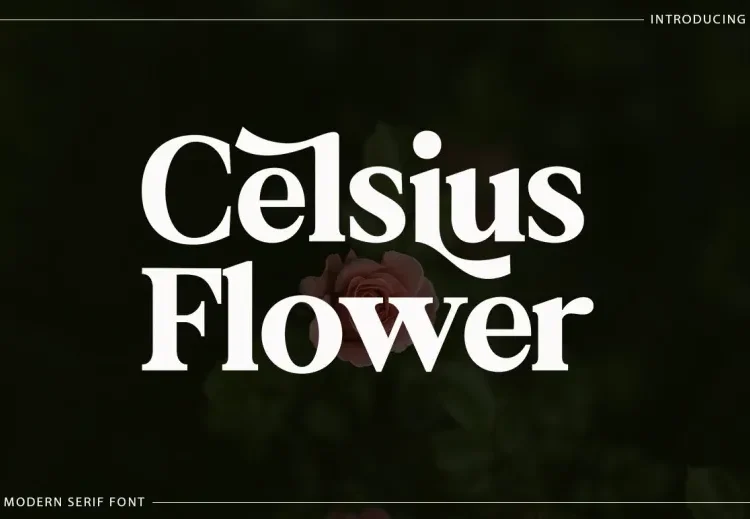
Celsius Flower Font
Celsius Flower is an attractive modern serif typeface characterized by its soft lines and elegant design. This versatile font strikes a perfect balance between stylish sophistication and readability, making it ideal for a variety of applications. Whether you’re working on invitations, menus, labels, or logos, Celsius Flower enhances your projects with a touch of contemporary grace.
Its design is particularly well-suited for feminine and romantic themes, adding a refined, sensual quality to any text. The font’s timeless appeal ensures it fits seamlessly into formal environments as well, making it a valuable choice for fashion brands, makeup labels, stationery, and more. The inclusion of ligatures and multilingual support further expands its usability, allowing for greater customization and accessibility.